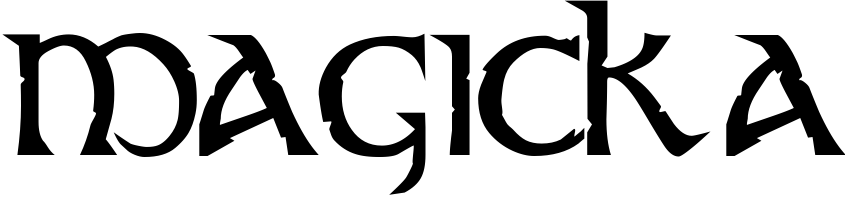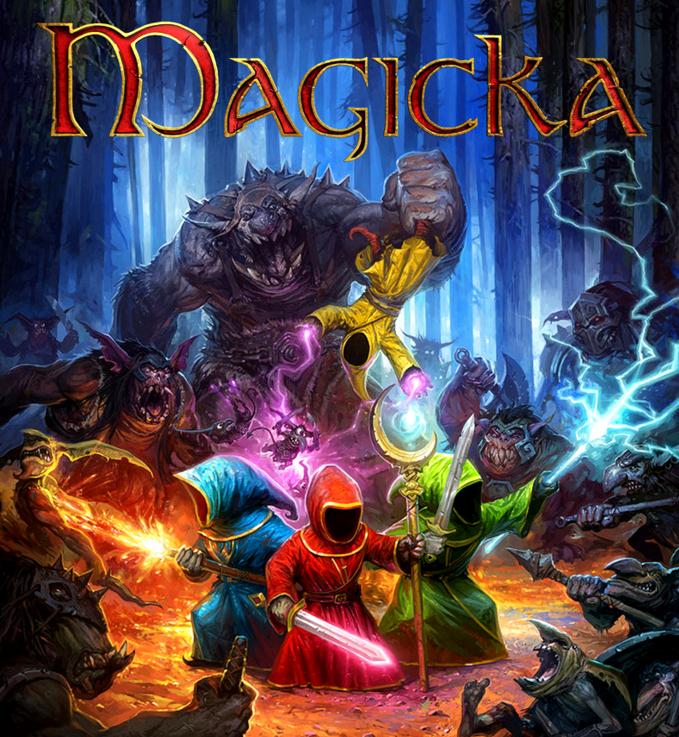
Action & AdventureMagicka is a satirical action-adventure game developed by Swedish independent developer Arrowhead Game Studios. The gameplay showcases a rich fantasy world based on Norse mythology. The player assumes the role of a wizard who must use their magical abilities to defeat various enemies and complete quests.
Stonecross is most probably the font used for the Magicka video game logo. Stonecross, a font created by David Nalle, has the appearance of the traditional Celtic uncial script and has been chiseled to resemble stone. It also contains some fanciful alternative character shapes and nicks and chips that give it the appearance of stone. The font is available for free download in the Fonts Used Section.